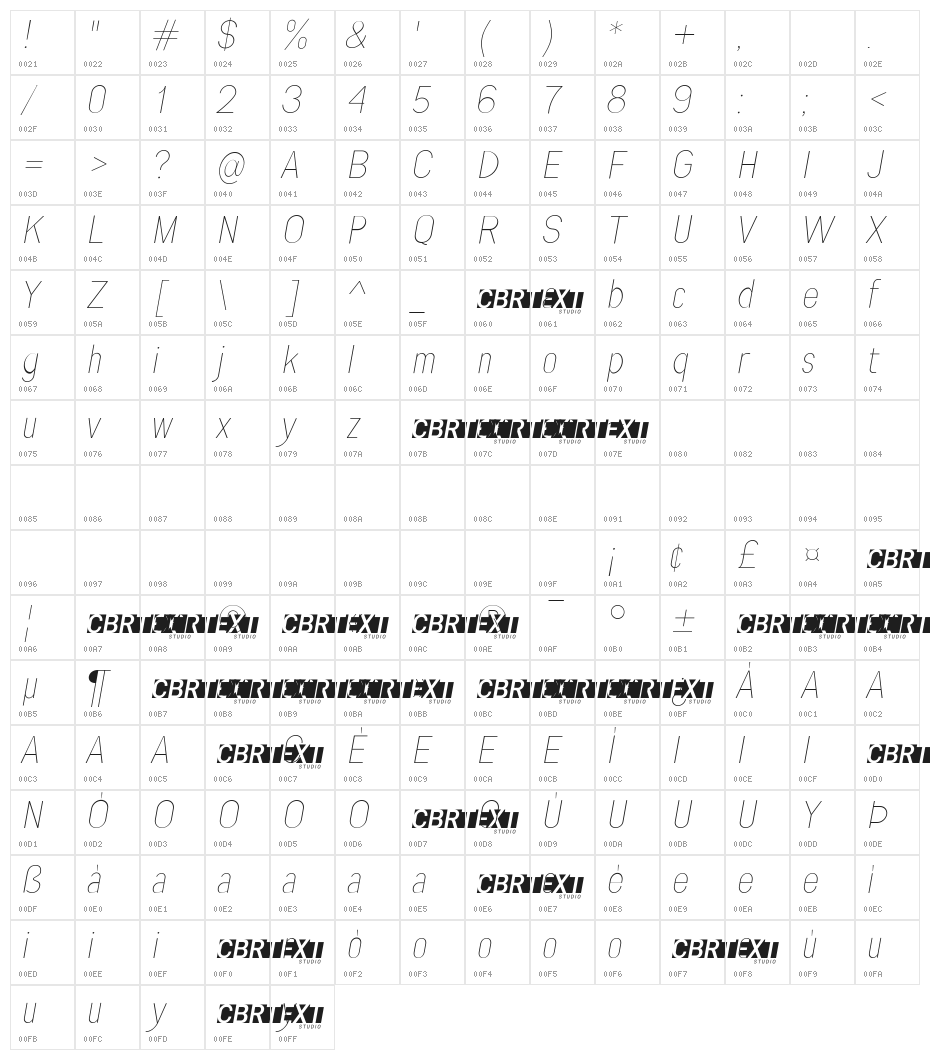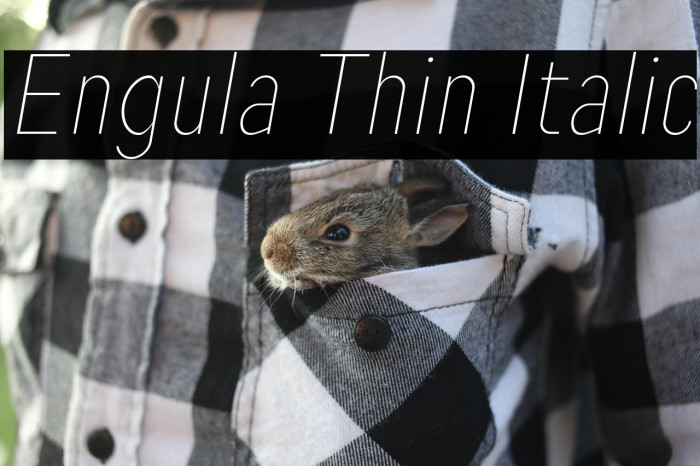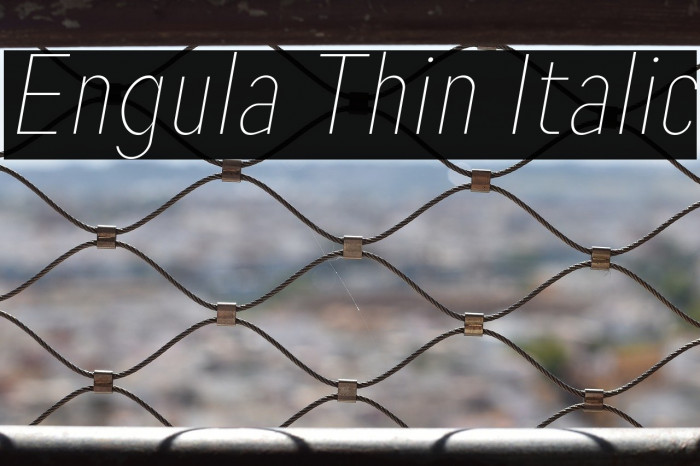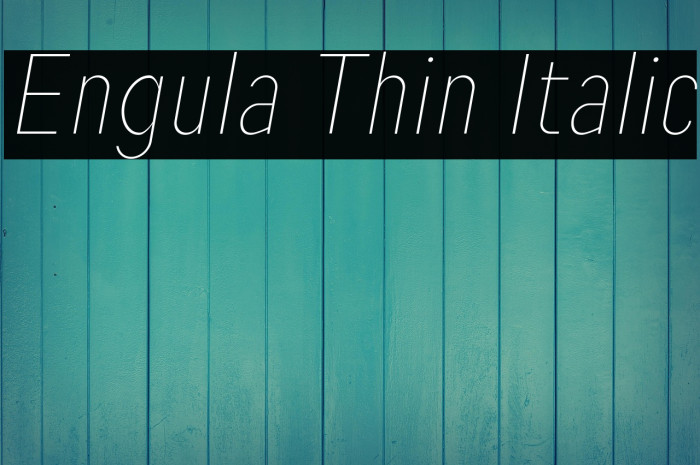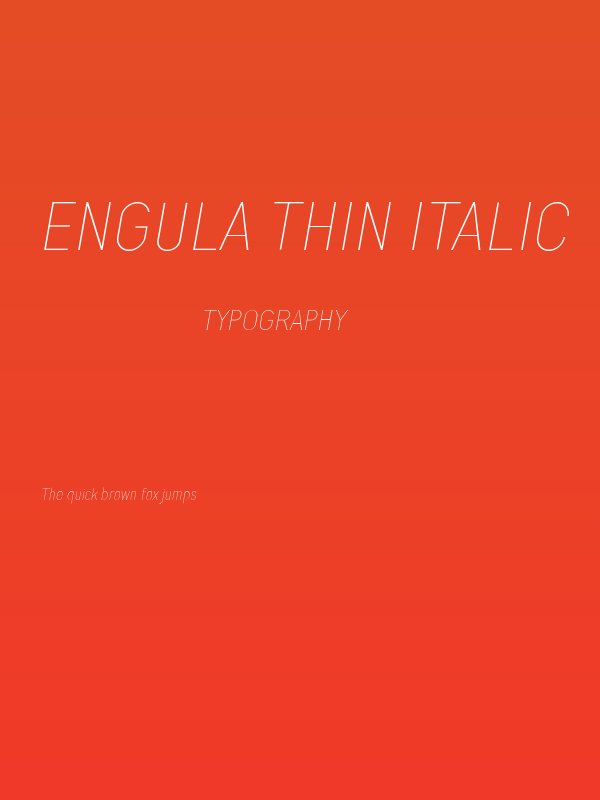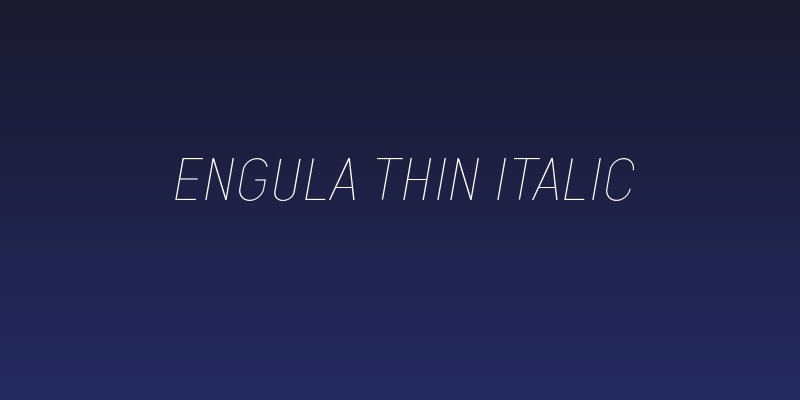
Engula Thin Italic Font
Engula Thin Italic Description
This font features a sleek and modern design with thin, elegant strokes that convey a sense of sophistication and style. The italicized form adds a dynamic and fluid quality, making it suitable for creative and contemporary projects. The characters are well-proportioned with a consistent slant, enhancing readability while maintaining a unique aesthetic. The font includes a full set of uppercase and lowercase letters, numerals, and a variety of special characters, ensuring versatility for various design needs.
Use CaseHeadlines, Logos, Invitations
Proposed ProjectsIdeal for fashion magazines, modern branding, elegant invitations, and artistic posters.